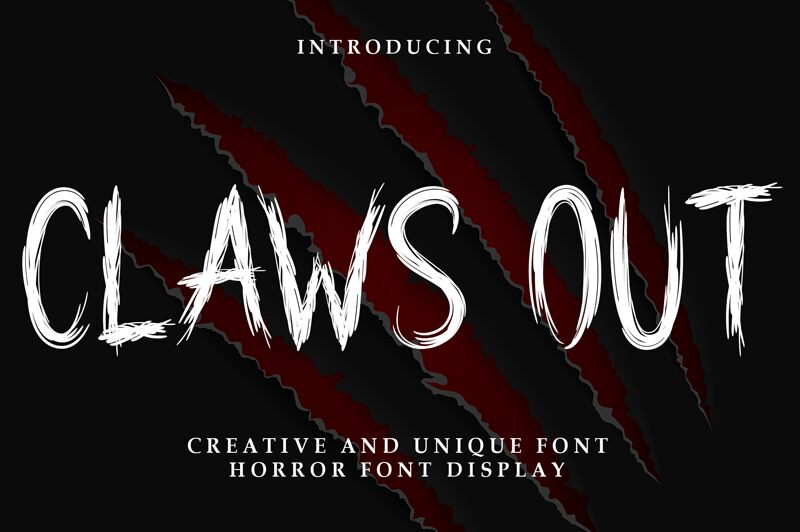
Claws Out
Claws Out font from Andi Moz is a scary display font with jagged characters and distressed aesthetics. The font impresses with its rough textures, expressive tad chaotic mood, and edgy vibe. An unusual typeface that sets high itself apart from its peers in an over-saturated typography world.